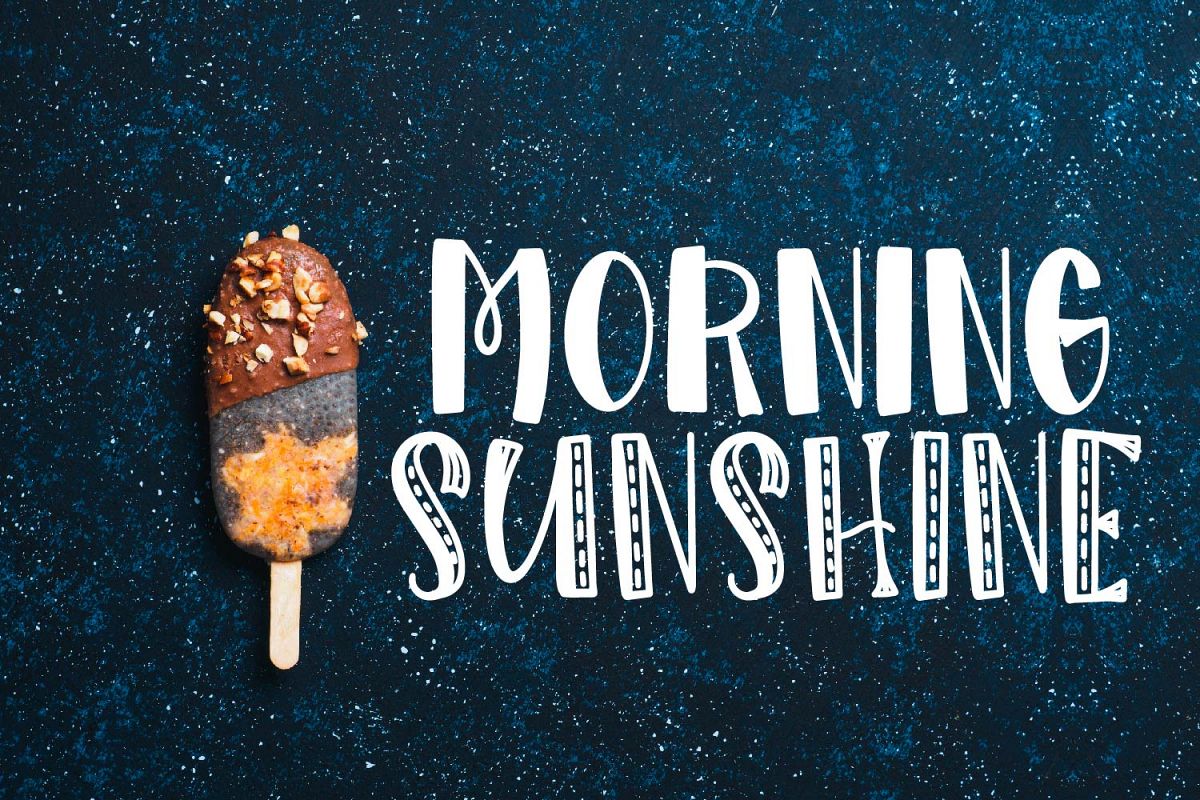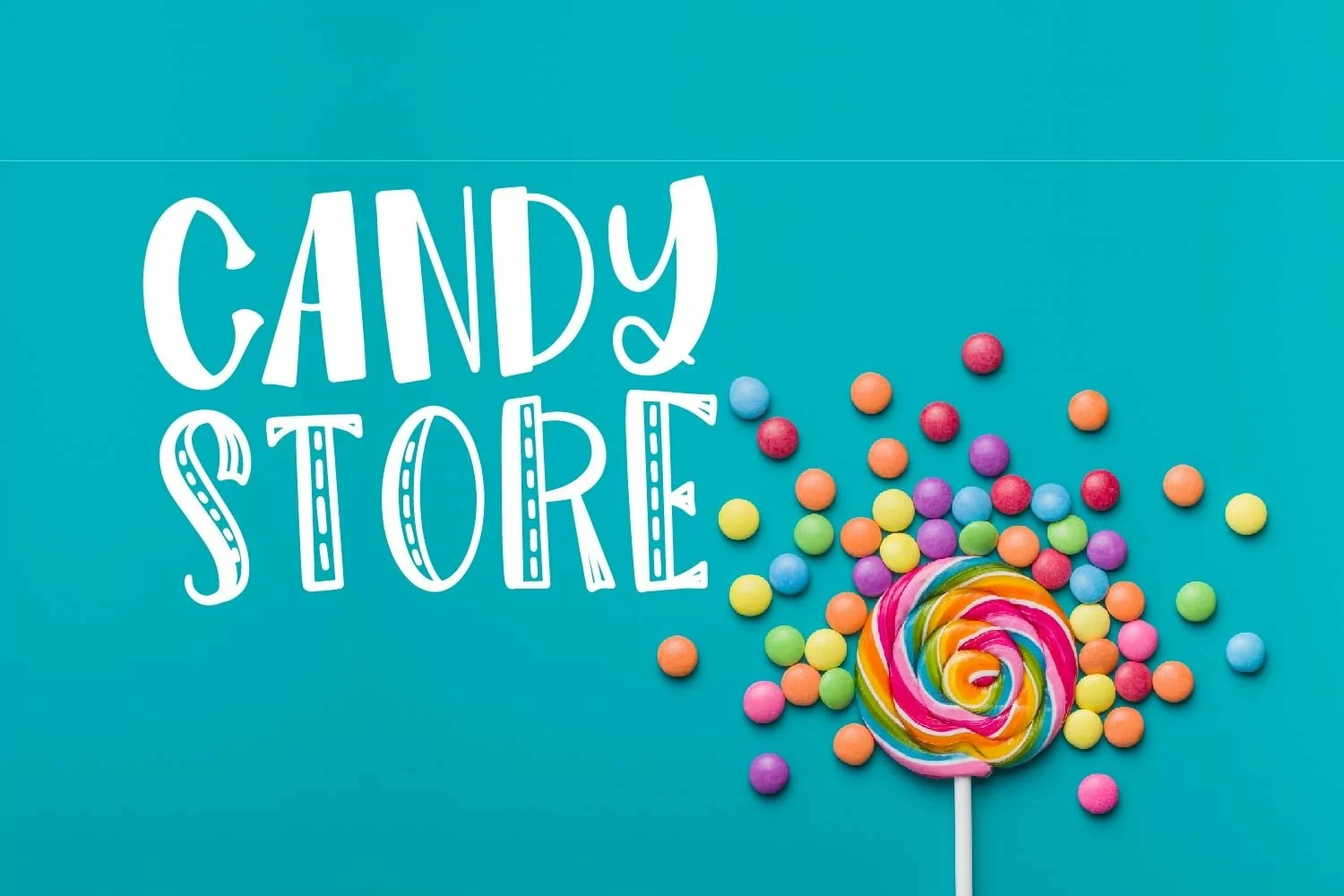
Morning Sunshine - A Silly Hand Lettered Font
This is a rather "mis-matchy" type, made to look "hand lettered"
Upper case includes a more detailed version - lower case a solid.